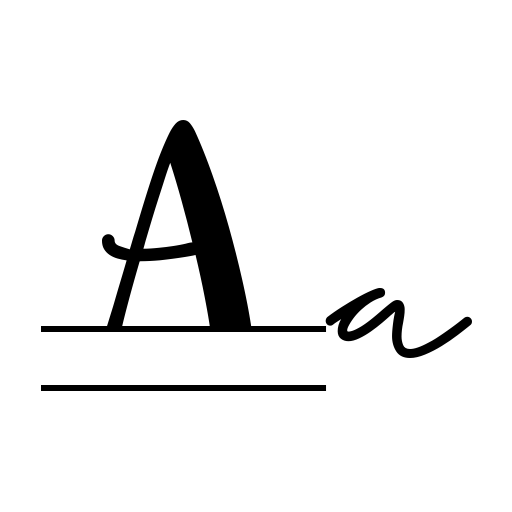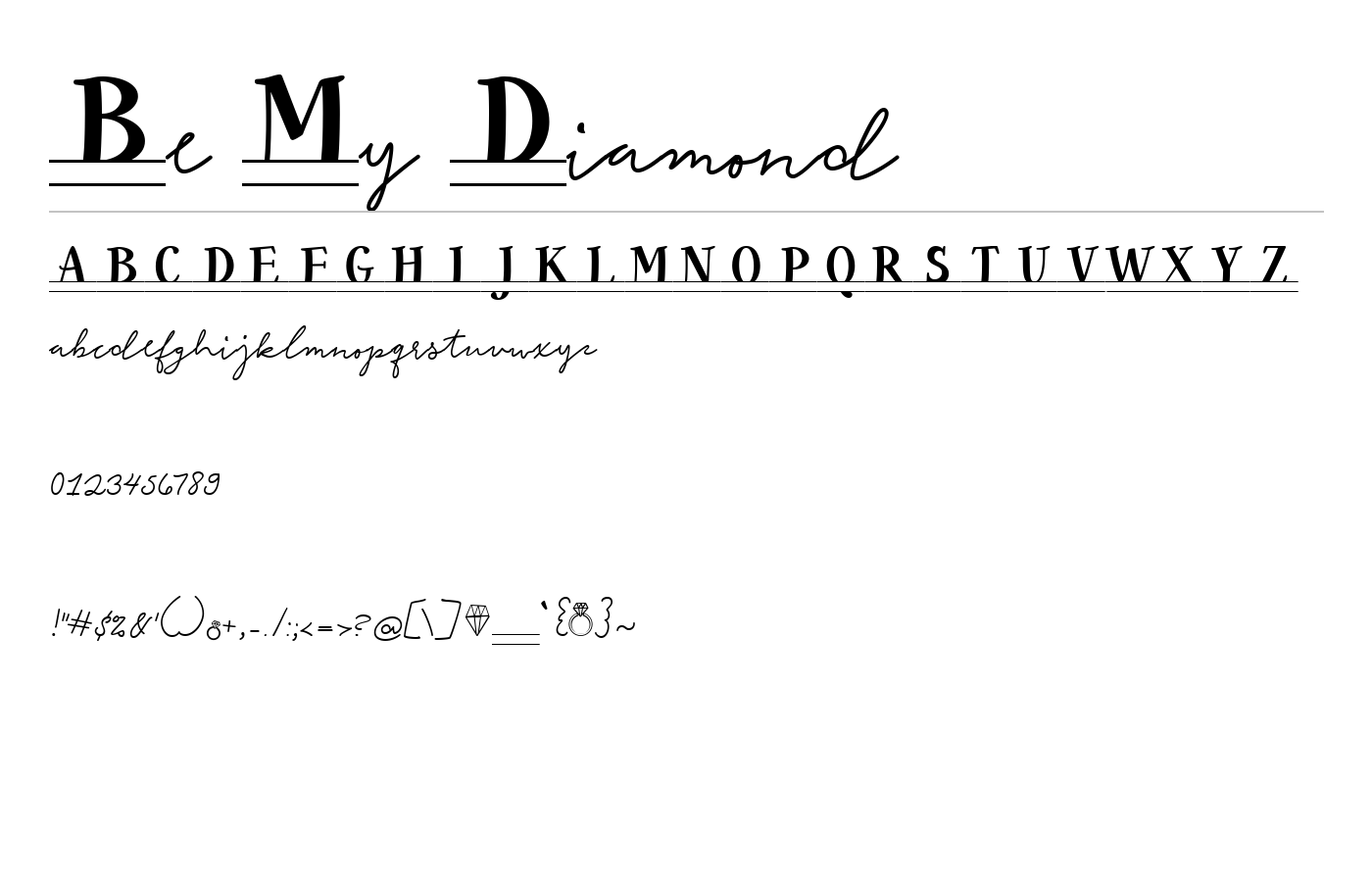
Be My Diamond is a unique serif font that combines elegant, bold uppercase letters with a delicate, flowing handwritten lowercase style, creating a charming contrast. Its high contrast between thick and thin strokes and classic serif details give it a sophisticated yet approachable feel, perfect for luxury branding, wedding invitations, and stylish editorial design. This font works well for headlines and logos where a blend of formality and personal touch is desired.
Be My Diamond Font
About Be My Diamond Font